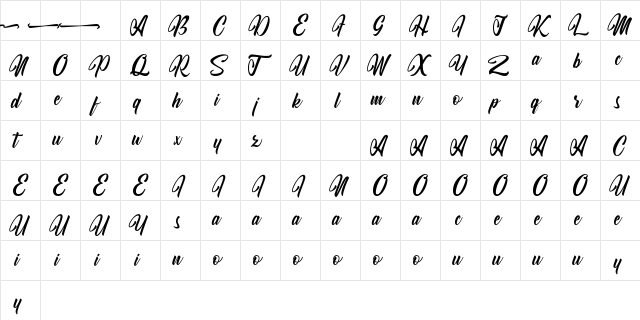
Kodinah Diary Regular
Design Context for Kodinah Diary Typeface
Kodinah Diary is a composed and adaptable typeface that performs quietly and consistently across a wide range of design contexts.